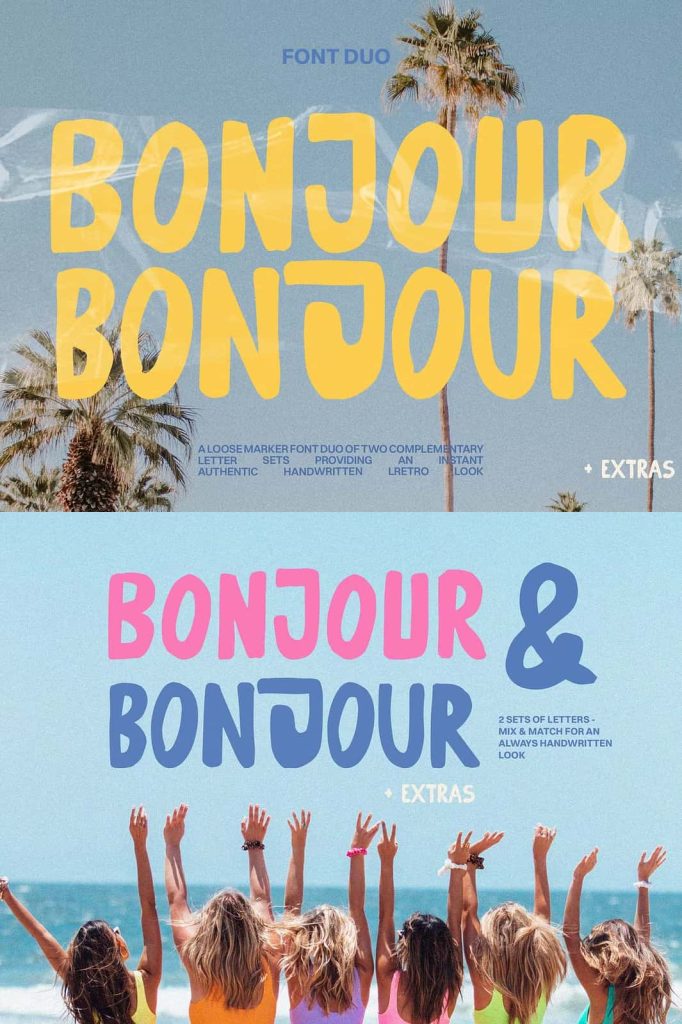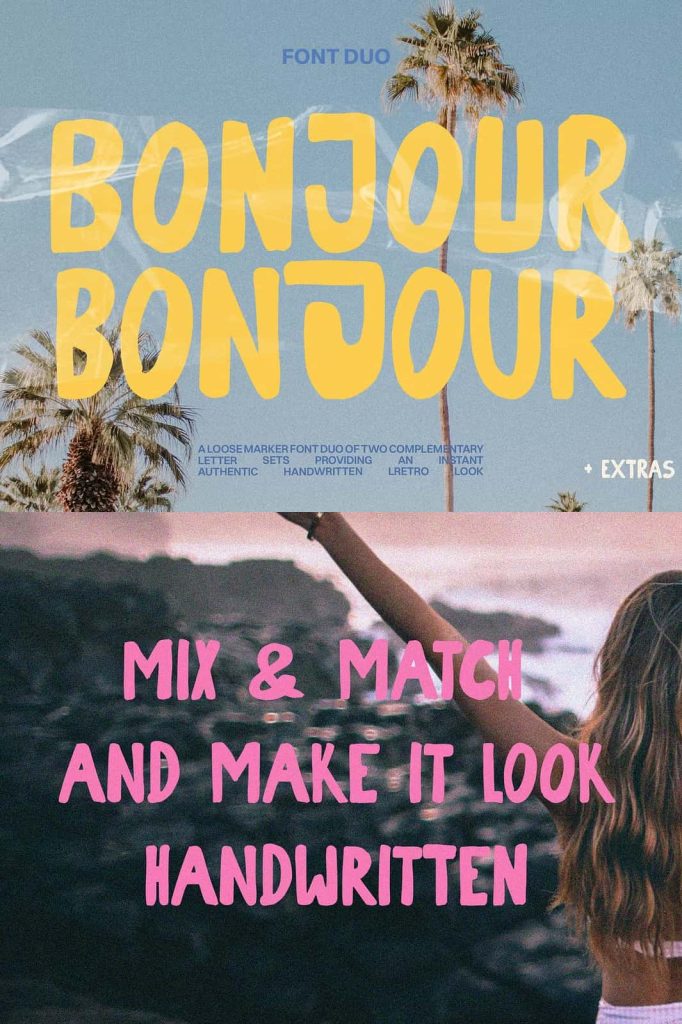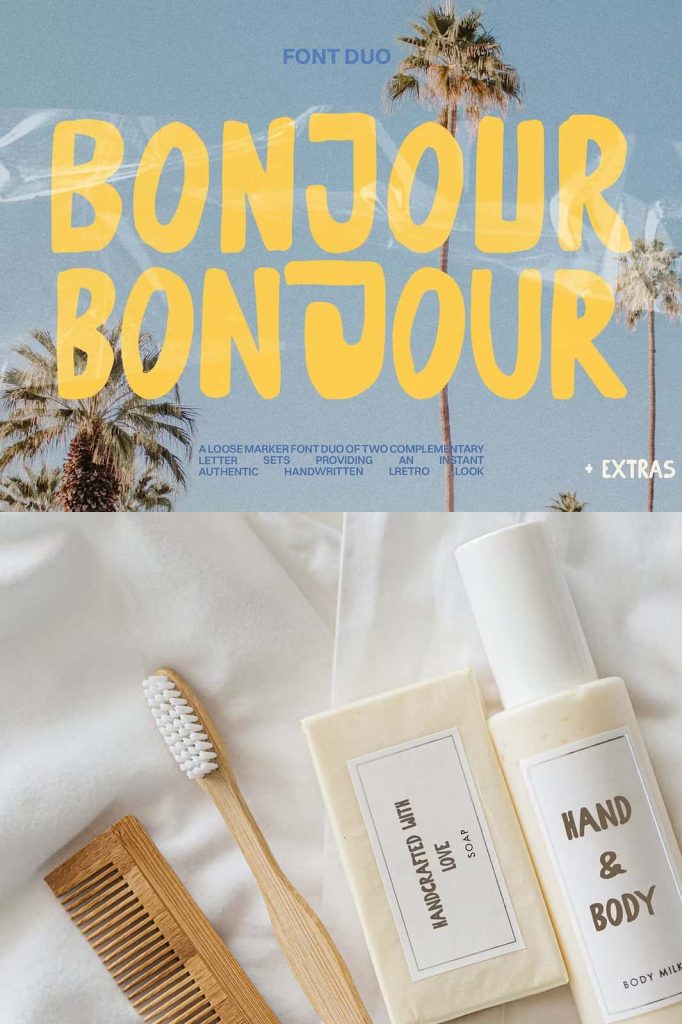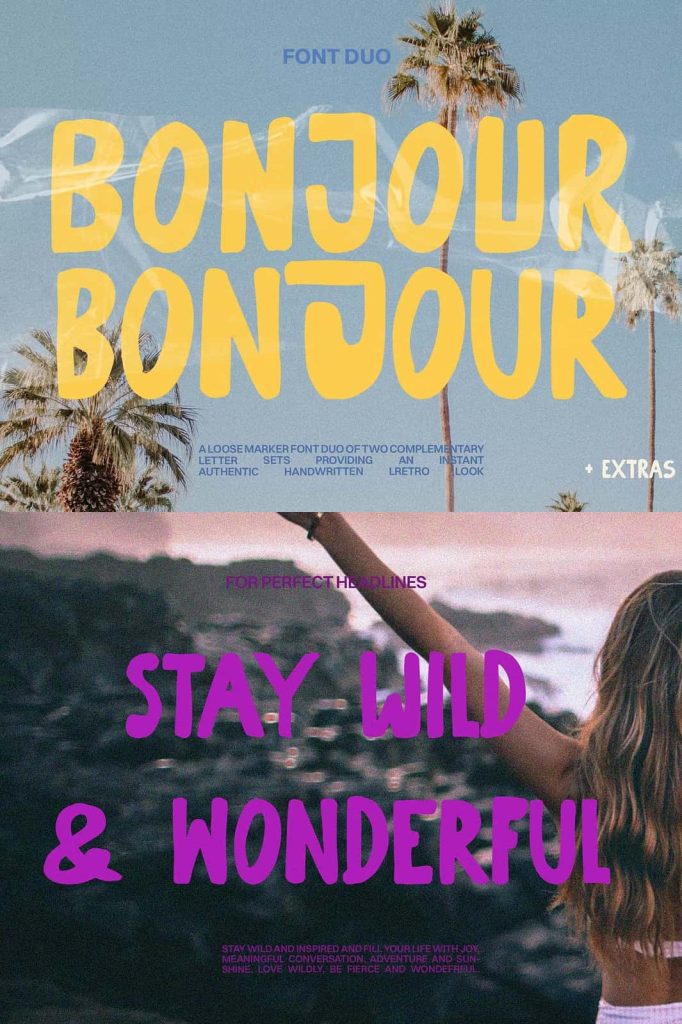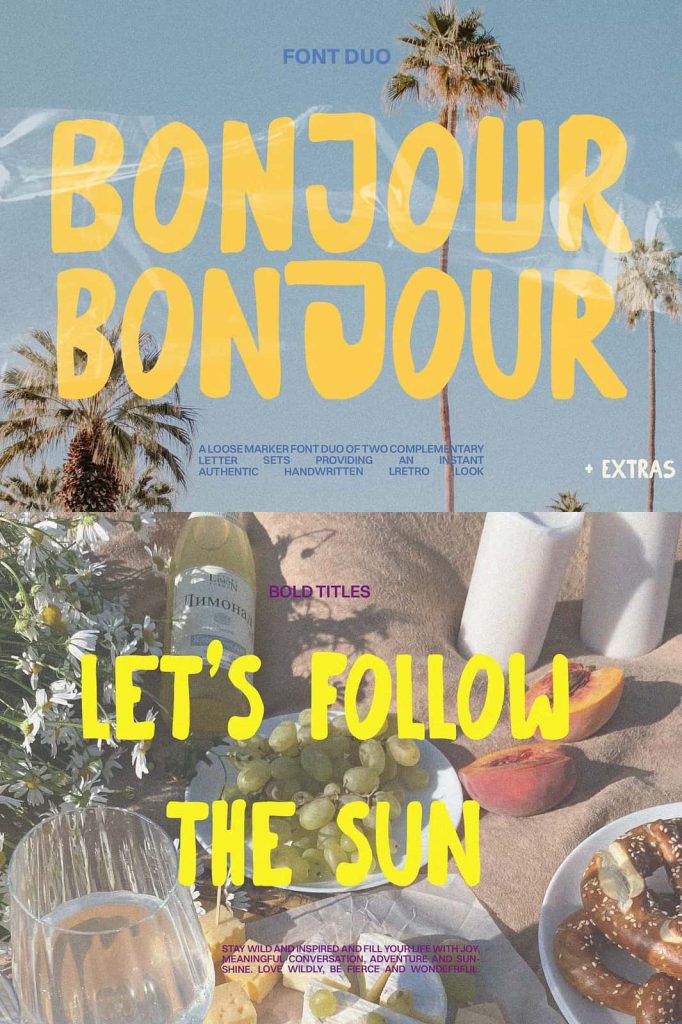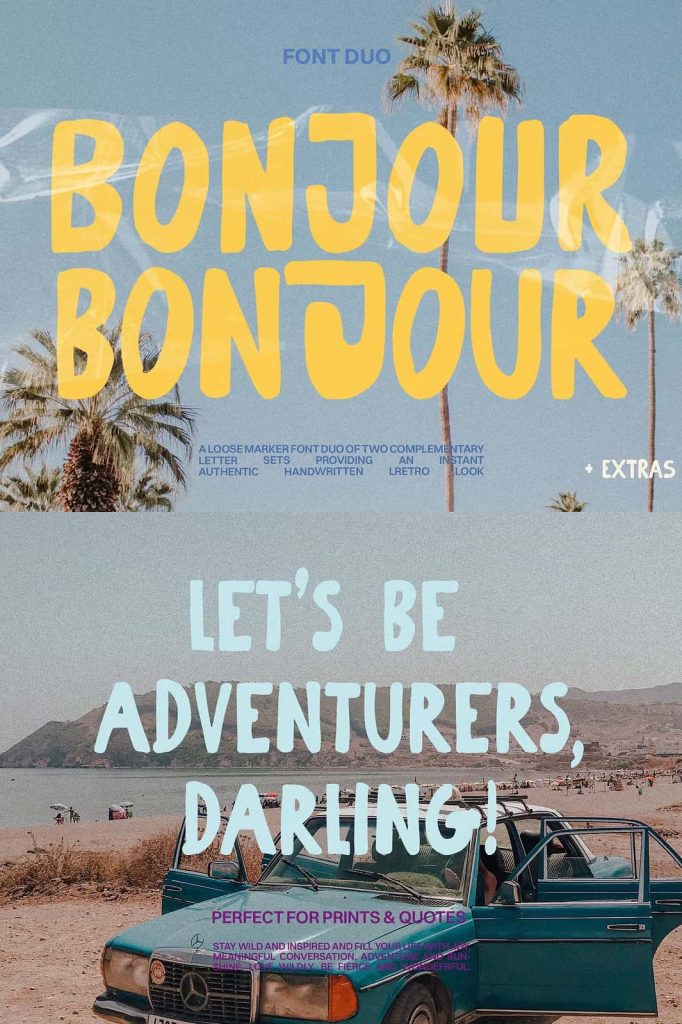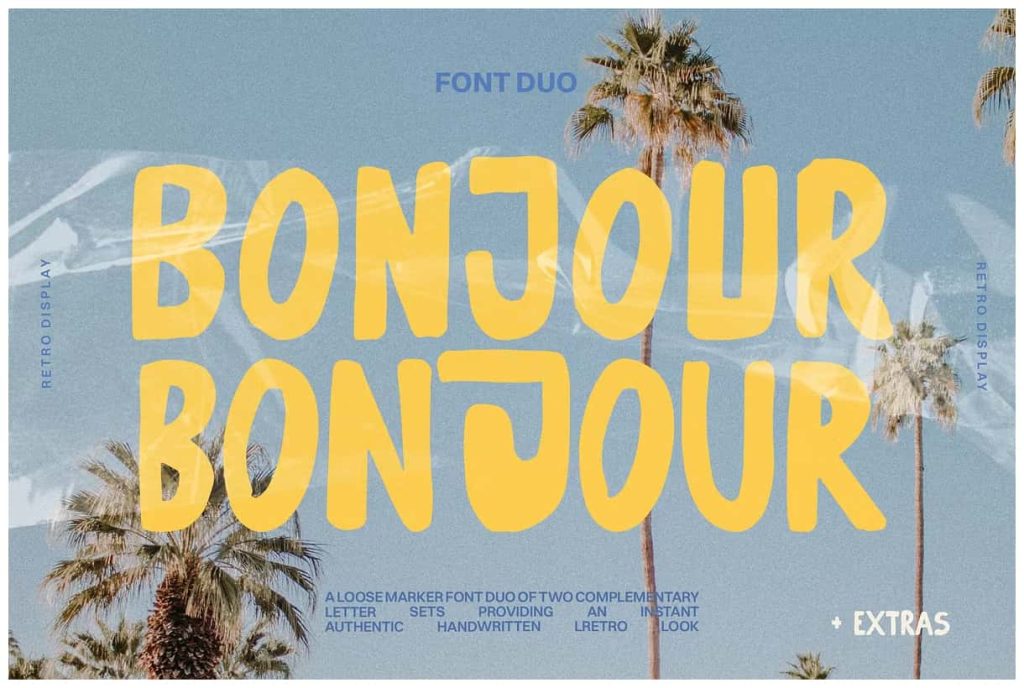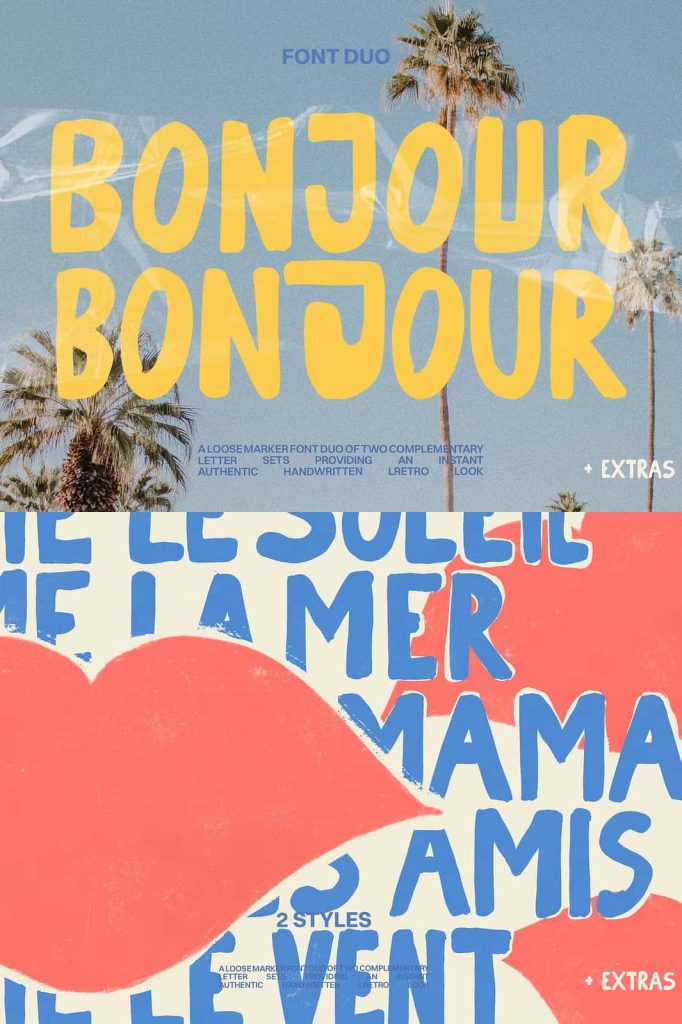
Bonjour & Bonjour Font Duo – A Playful Hand-Lettered Typeface for Bold Creative Expression
The Bonjour & Bonjour Font Duo brings a refreshing, energetic, and handcrafted personality to every design project. Created to resemble authentic hand lettering, this lively font pair delivers strong visual impact and versatility, making it a valuable addition to your typographic collection. The duo includes an expressive all-caps marker typeface alongside a complementary handwritten script, offering designers the freedom to mix, match, and build dynamic compositions with ease. Whether you are creating bold headlines, promotional posters, fashion branding, or social media content, Bonjour & Bonjour adds a confident and modern handcrafted aesthetic that enhances your overall design strategy.
A Fun and Expressive Font Duo with Handcrafted Charm
Bonjour & Bonjour captures the playful movement and natural flow of real marker lettering. The typeface’s all-caps marker style introduces bold character and confident strokes that instantly grab attention. Its companion script font enhances this boldness with a smoother and more fluid handwriting feel, creating a harmonious pairing for layered designs or contrasting text elements. Together, these fonts create a balanced yet lively typographic experience that stands out across various formats.
Because of its handcrafted appearance, the font duo works particularly well in projects that need a warm, personal, or artistic touch. From lifestyle brands to product labels, from event promotions to fashion campaigns, the font pair brings authenticity and personality into the spotlight.
Key Features of Bonjour & Bonjour Font Duo
1. Bold All-Caps Marker Typeface
The all-caps marker typeface is the true highlight of the Bonjour & Bonjour duo. Its thick lines, uneven edges, and hand-drawn feel create a loud and expressive style that thrives in attention-grabbing scenarios. Designers can use it for bold titles, striking headers, dynamic product packaging, urban streetwear branding, and creative advertising layouts. The marker style maintains excellent legibility while preserving a handcrafted identity.
2. Complementary Handwritten Script
The second font in the duo is a fluid, casual script that pairs beautifully with the marker variant. The handwritten flow provides contrast without losing thematic consistency, allowing you to build layered designs and create visual hierarchy with ease. The script enhances signature-inspired graphics, lifestyle content, decorative phrases, and personal branding elements.
3. Ideal for a Wide Range of Creative Applications
Bonjour & Bonjour adapts seamlessly to a wide variety of design needs. Its energetic and youthful personality makes it a go-to choice for fashion labels, modern boutique brands, event promotions, posters, handcrafted products, and social media campaigns. The font also performs well for apparel designs, stickers, packaging concepts, and high-engagement digital posts that require strong visual storytelling.
4. Authentic Hand-Lettered Feel
Every stroke of Bonjour & Bonjour reflects the organic imperfections and movement typically seen in real hand lettering. These handcrafted qualities give your designs a natural, approachable, and artistic vibe. The built-in texture, irregular edges, and dynamic shapes communicate authenticity and creativity, making the duo perfect for designers who value personality over uniformity.
Why Designers Love Working with Bonjour & Bonjour
Designers trust the Bonjour & Bonjour Font Duo because it offers both visual strength and creative flexibility. Its bold style ensures visibility in fast-paced digital environments, while its handcrafted charm adds a personal touch to branding projects. The pairing of marker and script styles provides numerous layout possibilities, allowing designers to experiment with expressive compositions, dynamic typography, and layered graphics. Whether you want to energize a promotional campaign or create impactful branding for a modern business, Bonjour & Bonjour supports your artistic vision with confidence.
Conclusion: Bring Energy, Style, and Personality to Your Designs
The Bonjour & Bonjour Font Duo is a must-have for creatives who want to add boldness, movement, and handcrafted personality to their work. Its expressive marker typeface and complementary handwritten script work together to elevate posters, apparel designs, social media content, brand identities, packaging, and more. With its playful charm and high visual impact, Bonjour & Bonjour delivers a memorable typographic experience that helps your designs stand out in every setting.